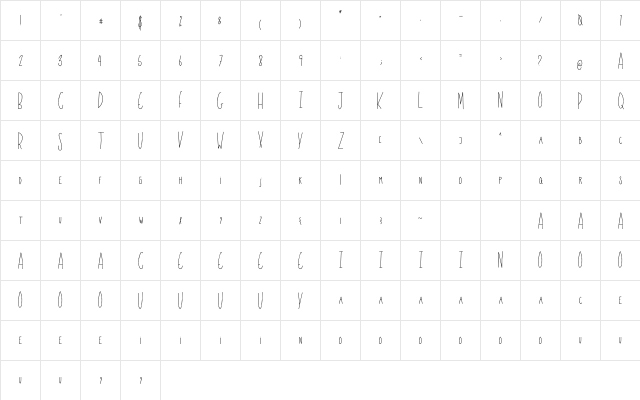
LowBeam Regular
| Designer | Dwayne Adams |
Design Context for LowBeam Typeface
LowBeam offers clean, dependable letterforms without strong stylistic allegiance, making it a practical choice for designers who need flexibility.